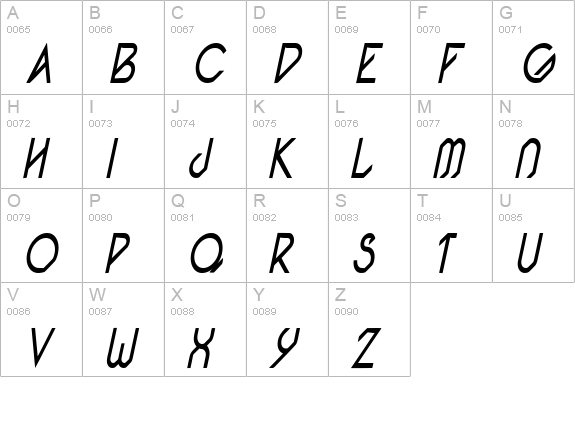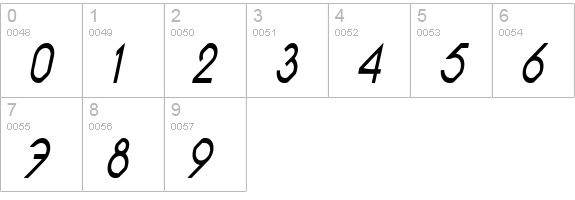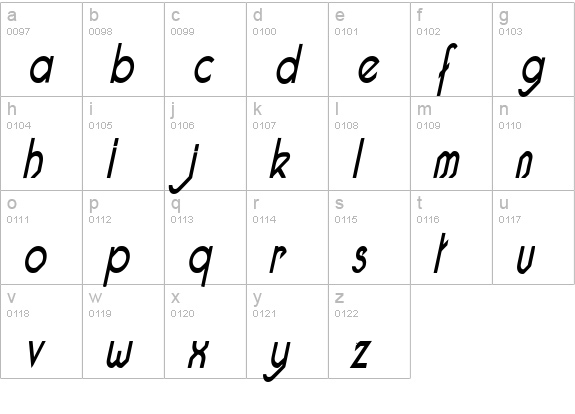
Pacotillenarrow regularital Font Details
Introducing Pacotillenarrow Regularital font, a stylish and modern typeface that will elevate your design projects to the next level. This font features sleek and elegant letterforms with a touch of sophistication, making it perfect for a wide range of design applications. Pacotillenarrow Regularital font is not only visually appealing but also highly versatile, making it suitable for various design projects such as logos, branding, packaging, posters, and more. Its narrow design adds a unique and contemporary flair to any project, while the italic style adds a subtle sense of dynamism and movement. The best part? Pacotillenarrow Regularital font is available for free download at FontsMarket.com. So go ahead and enhance your designs with this beautiful and eye-catching font today!